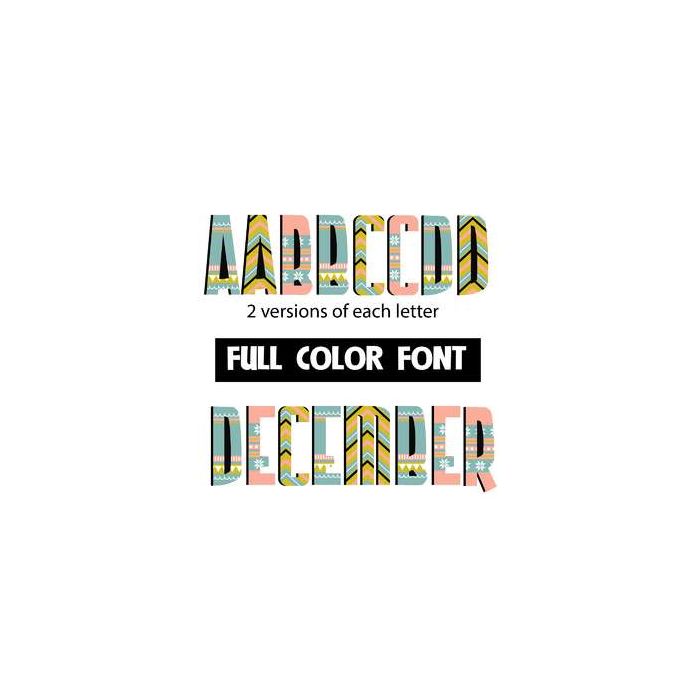
This full-color font features winter, snowflake patterns throughout. This font works best for titles, displays, posters and more. Please note color fonts will show as black in non compatible programs. This font type is compatible with Silhouette Studio.